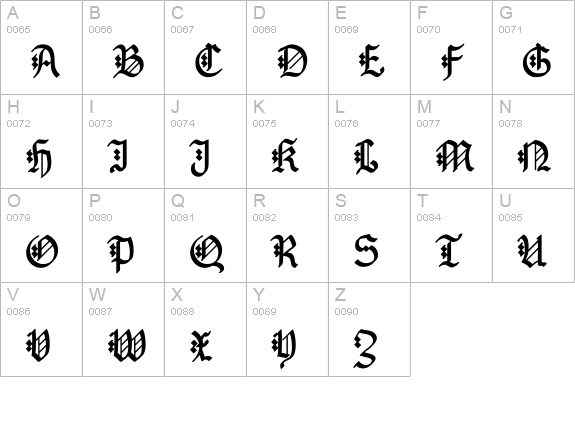
GotenborgFraktur Font Details
GotenborgFraktur is a captivating font that beautifully merges the elegance of traditional Fraktur typography with a modern twist. This unique typeface exudes a sense of refined sophistication, making it a perfect choice for projects that require a touch of timeless charm. With its intricate letterforms and elaborate details, GotenborgFraktur effortlessly captures attention and adds a touch of artistic flair to any design. Each character is meticulously crafted, showcasing the dedication and craftsmanship that went into its creation. The sharp angles and distinctive curves create a harmonious balance, resulting in a visually appealing font that is both bold and graceful. What makes GotenborgFraktur even more remarkable is that it is available for free download at FontsMarket.com. This means that designers and creatives can easily access and utilize this exquisite font without any financial limitations. Whether you are working on a personal project, a commercial endeavor, or simply looking to enhance your typographic collection, GotenborgFraktur is a versatile font that will undoubtedly elevate your designs. This font is highly suitable for a wide range of applications, including logo design, branding, packaging, invitations, posters, and more. Its versatility allows it to adapt to different styles and themes, effortlessly complementing both modern and vintage aesthetics. The enchanting allure of GotenborgFraktur is further enhanced by its excellent legibility, ensuring that your message is conveyed with clarity and impact. Whether used in headlines, titles, or body text, this font retains its distinctive character and ensures a consistent and engaging reading experience. Embrace the beauty and sophistication of GotenborgFraktur and let your creativity soar. Download this exceptional font for free at FontsMarket.com and unlock a world of endless design possibilities.